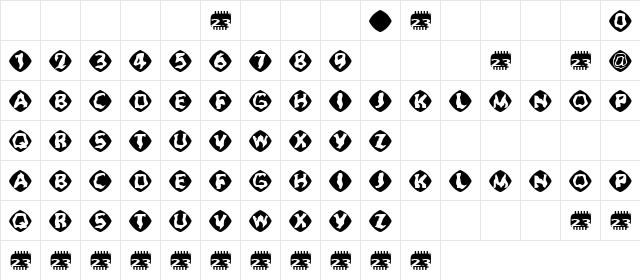
Zone23_Dreamtime 723 Normal
Design Context for Zone23_Dreamtime 723 Typeface
Zone23_Dreamtime 723 is a composed and adaptable typeface that performs quietly and consistently across a wide range of design contexts.